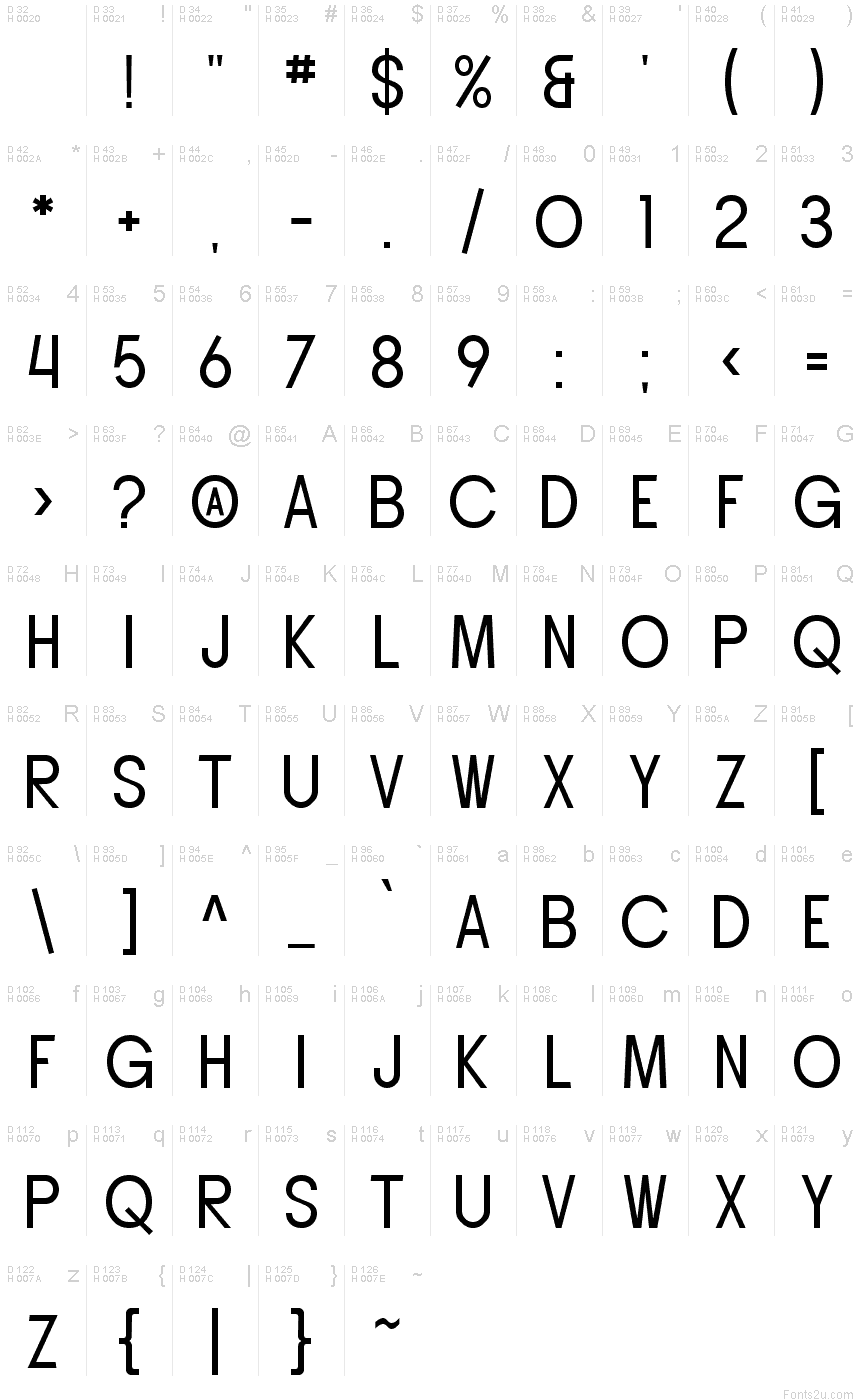
SF Buttacup Lettering
SF Buttacup Lettering by ShyFoundry is a free geometric sans caps font with a crisp, modernist feel. The letters pair near-monoline strokes with broad round curves and blunt, squared endings, so the overall look feels clean and pared back rather than neutral.
That makes this free font a natural fit for posters, book covers, packaging, title cards, and simple wordmarks where a short line of type needs a cool, graphic voice. It also works well for monograms, initials, and cover lines, because the round forms and hard vertical cuts give even a few letters a strong, poster-like presence.